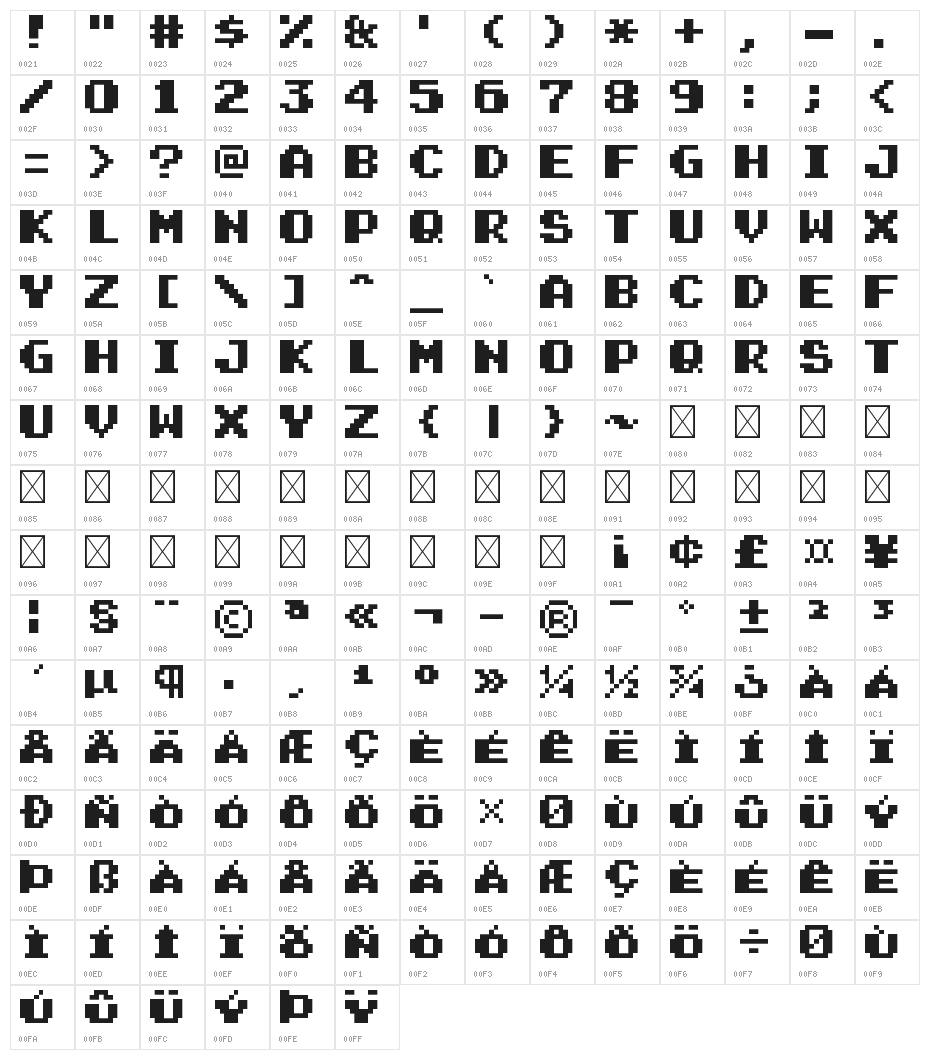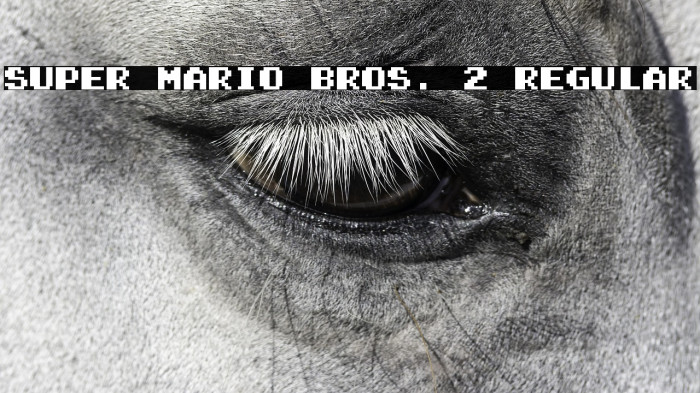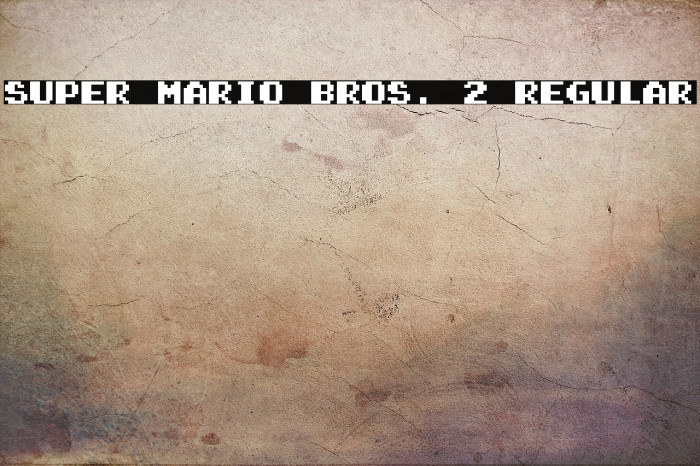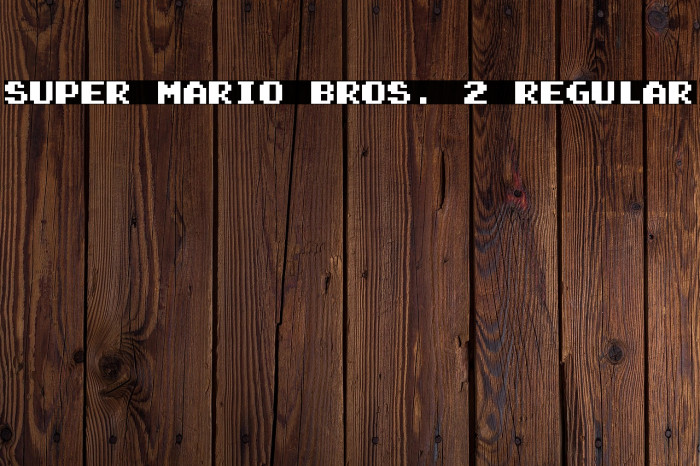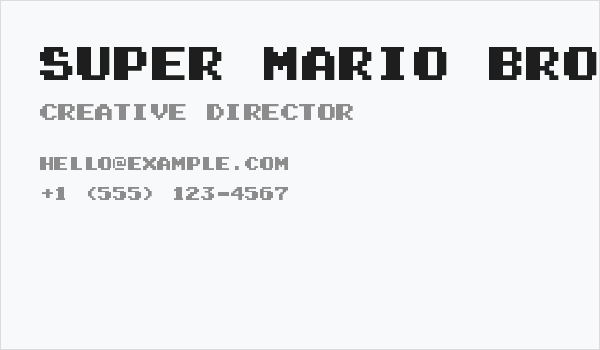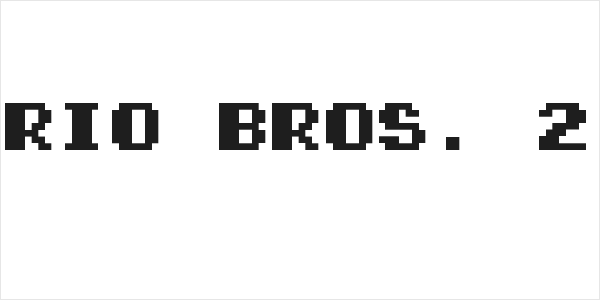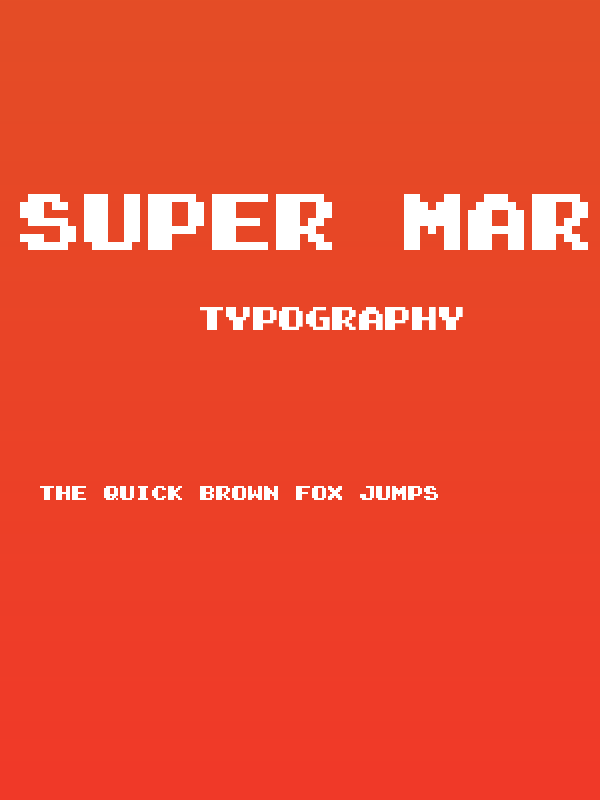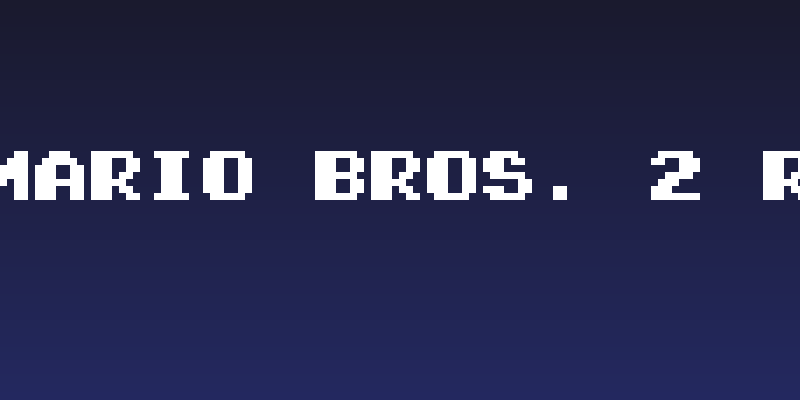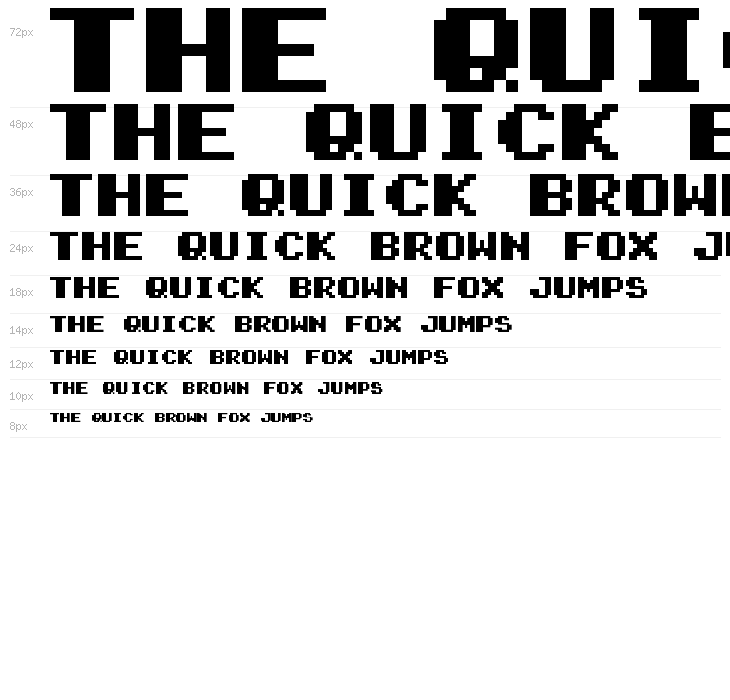
Super Mario Bros. 2 Regular Font
Super Mario Bros. 2 Regular Description
This font features a bold, pixelated style reminiscent of classic video game graphics. Each character is constructed with a blocky, grid-like appearance, emphasizing a retro aesthetic. The uppercase and lowercase letters maintain a consistent height, contributing to a uniform look. Numbers and special characters follow the same pixelated design, ensuring cohesion across all glyphs. The font's nostalgic charm makes it ideal for projects that aim to evoke a sense of early digital or arcade gaming. Its simplicity and clarity make it highly legible, even at smaller sizes.
| Use Case | Headlines, Logos, Digital Art |
| Proposed Projects | Ideal for retro video game designs, nostalgic branding, digital art projects, and themed event invitations. |